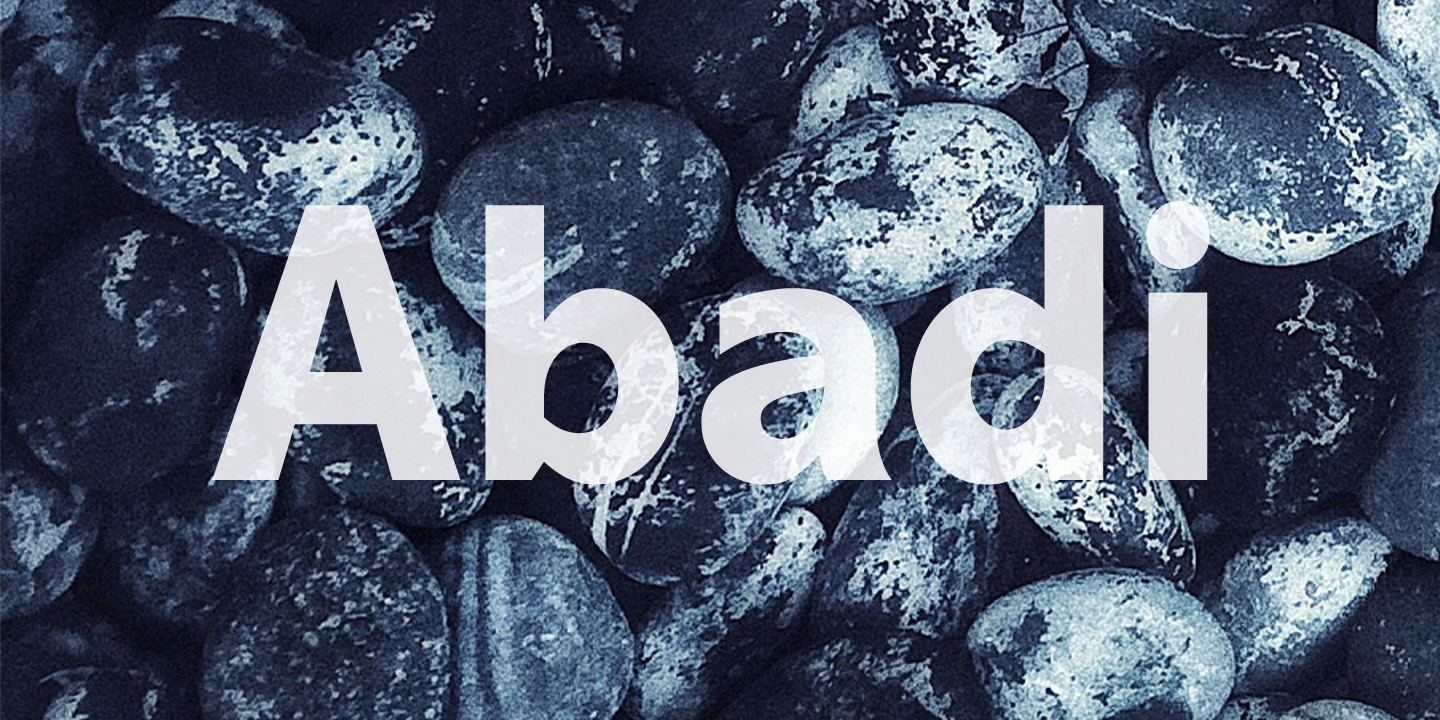
The Abadi Font is a clean, modern sans-serif typeface, highly valued for its exceptional legibility, balanced proportions, and sleek, contemporary appeal. Imagine its clear, efficient forms providing a solid foundation for corporate branding, adding a crisp touch to professional presentations, or forming the backbone of clean, user-friendly digital interfaces and mobile applications. Abadi Font also excels in various other applications such as concise editorial layouts, informative brochures, and any content where clarity, efficiency, and a straightforward modern aesthetic are crucial. Its unpretentious design and consistent appearance ensure your message is conveyed with precision and a refined simplicity, making it a highly adaptable choice for diverse projects.
What makes Abadi Font so exciting is its remarkable ability to achieve a balance between modern sophistication and everyday practicality. It offers the clean lines and efficiency of a contemporary sans-serif but with a subtle warmth and approachability that prevents it from feeling cold or overly sterile. This versatility allows it to seamlessly adapt to various tones, from serious and authoritative to friendly and informative. Its outstanding legibility, even at small sizes and in challenging environments, is a key reason for its widespread adoption in professional and digital contexts. It’s more than just a typeface; it’s a reliable workhorse that consistently delivers clarity, efficiency, and a timeless modern aesthetic that remains fresh over time. Designers value its straightforward nature and dependable performance for creating organized and visually appealing layouts.
The Abadi Font family is typically comprehensive, offering a versatile range of weights and styles to provide extensive typographic control. Beyond the core Abadi Regular, the family often includes a spectrum from lighter weights like Abadi Light through Abadi Book, Abadi Medium, and up to bolder weights like Abadi Bold and Abadi Extra Bold. Each of these weights usually comes with corresponding Abadi Italic versions to add stylistic variation. Professional versions may also include extended character sets for broader language support, providing immense flexibility for diverse communication needs. This extensive range of family members ensures that designers can create intricate and harmonious typographic systems, maintaining a consistent, powerful, and aesthetically pleasing appearance across all elements of a project, from headlines to body text.